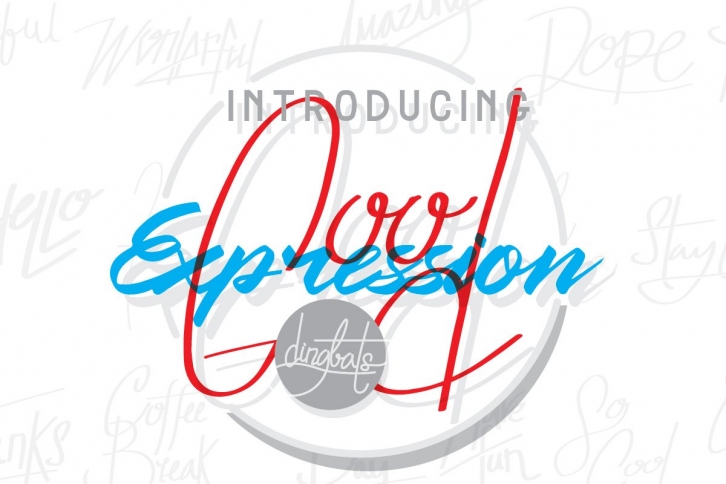
Good Expression Dingbats is inspired by words from amazing people around the world! With over 52 glyphs, this font makes a great addition to your design resources! Works great with posters, badges, apparel designs, and many more!